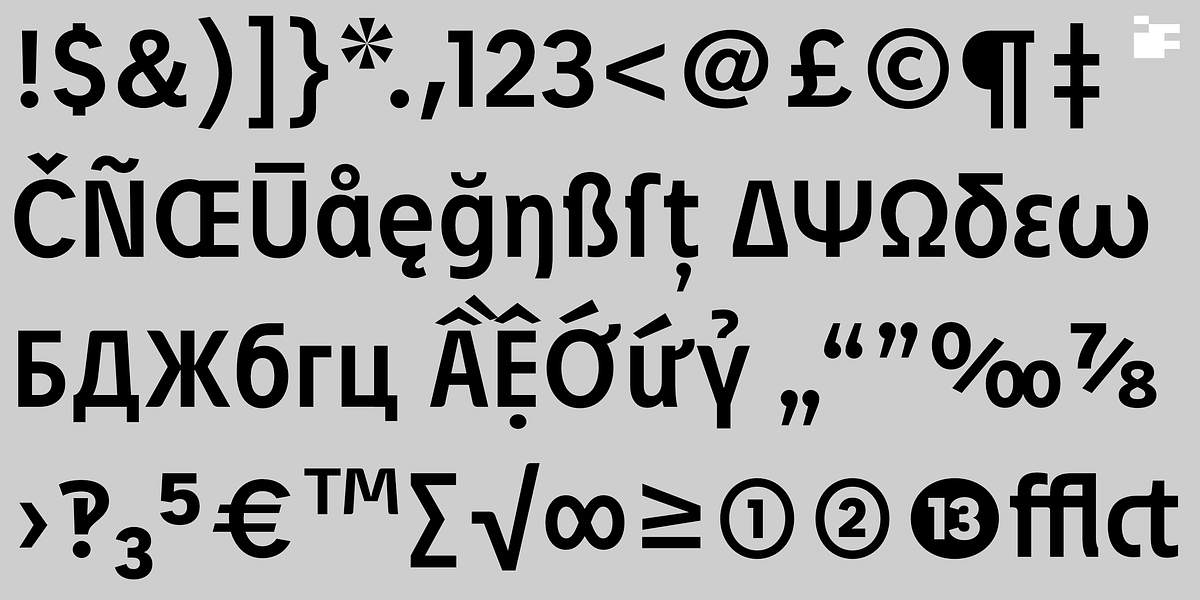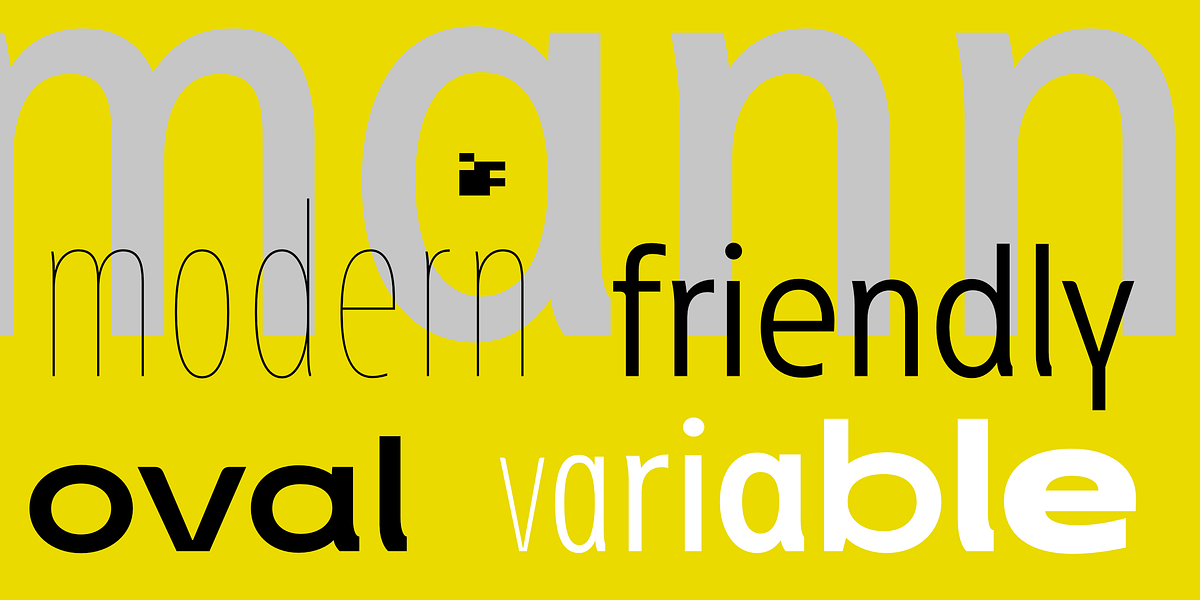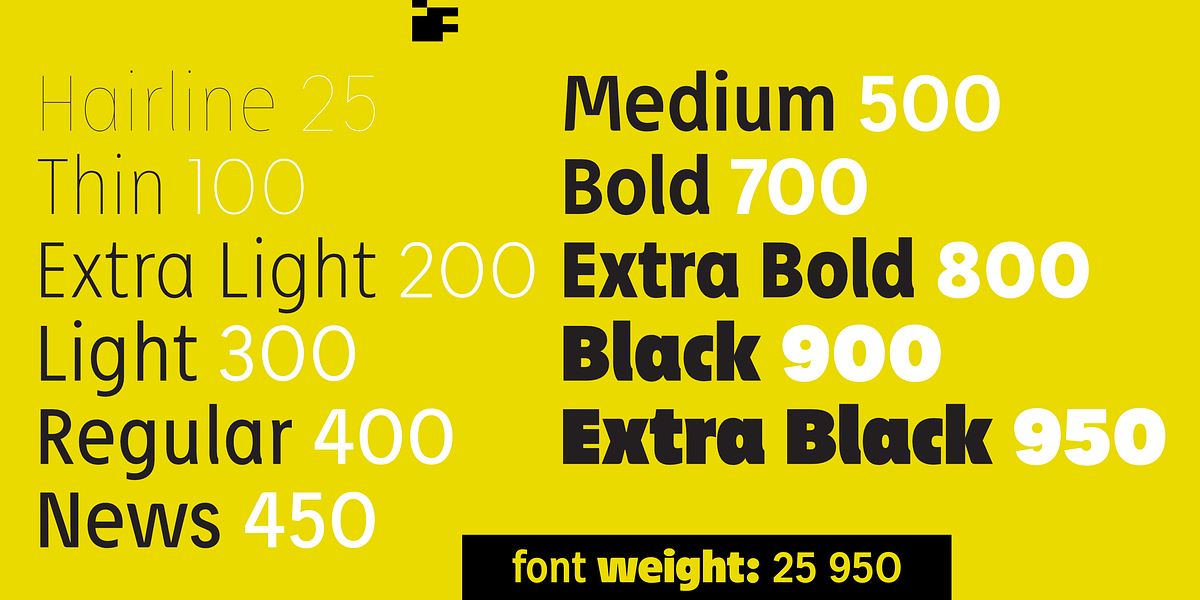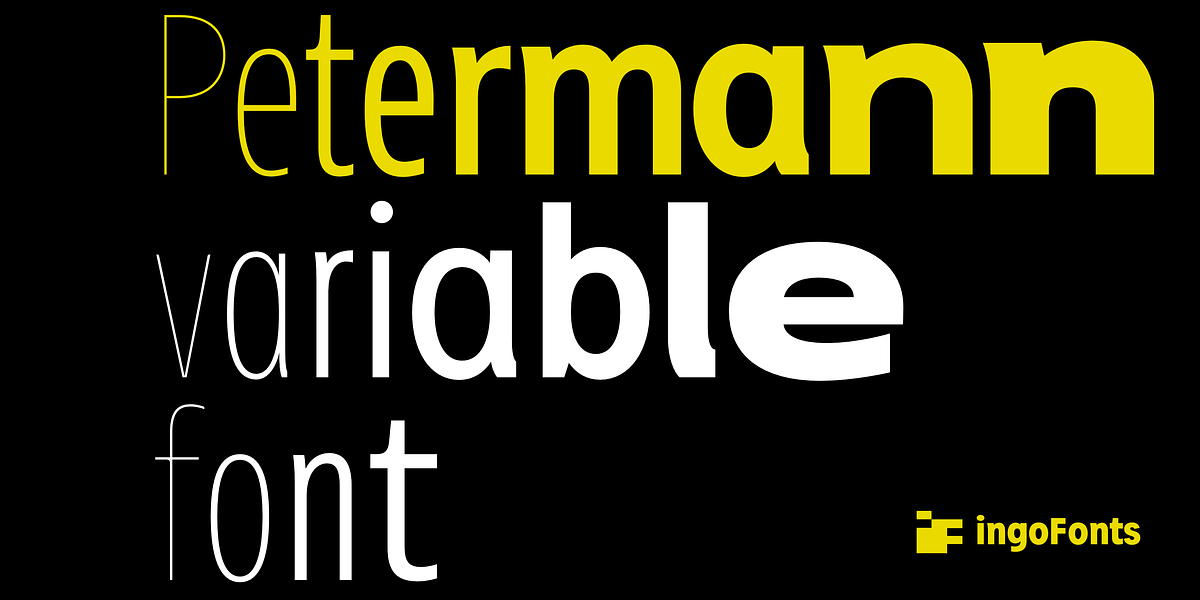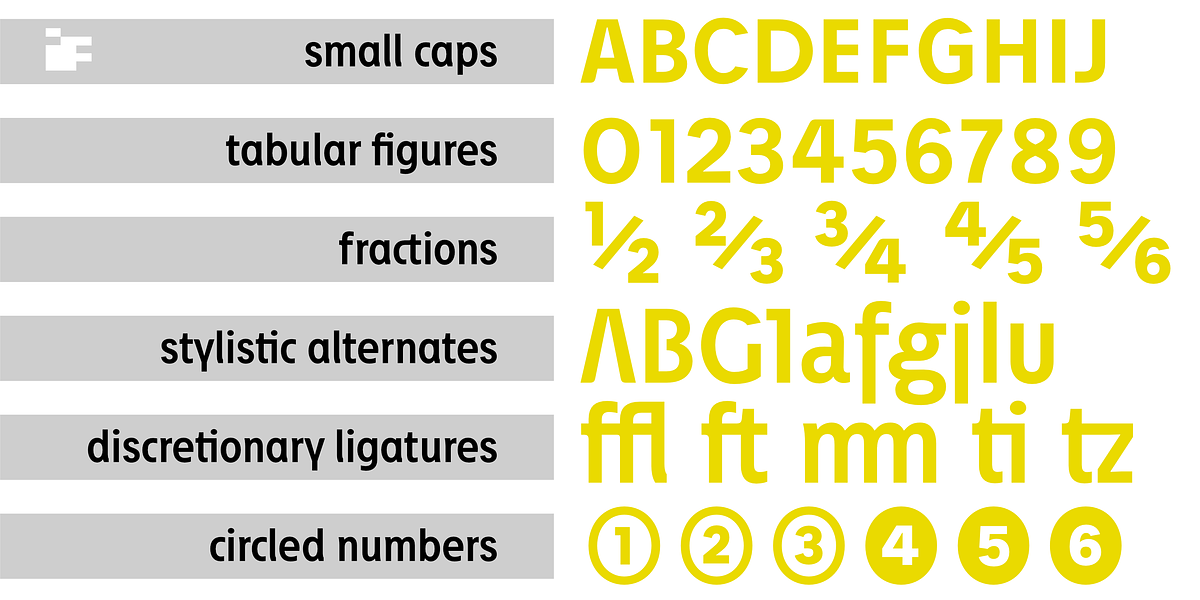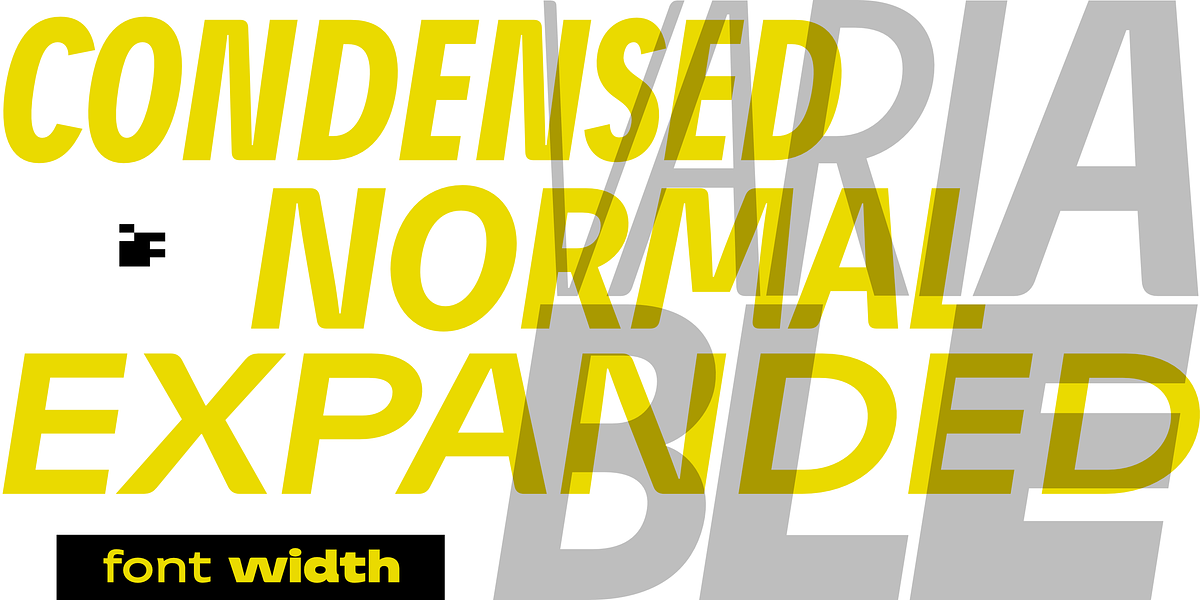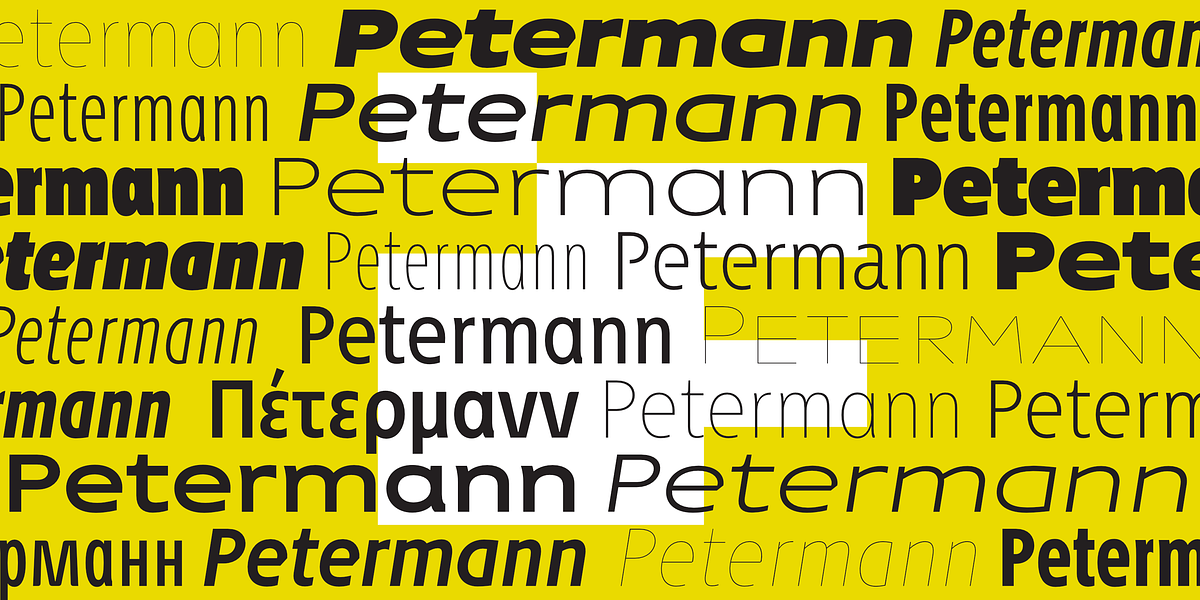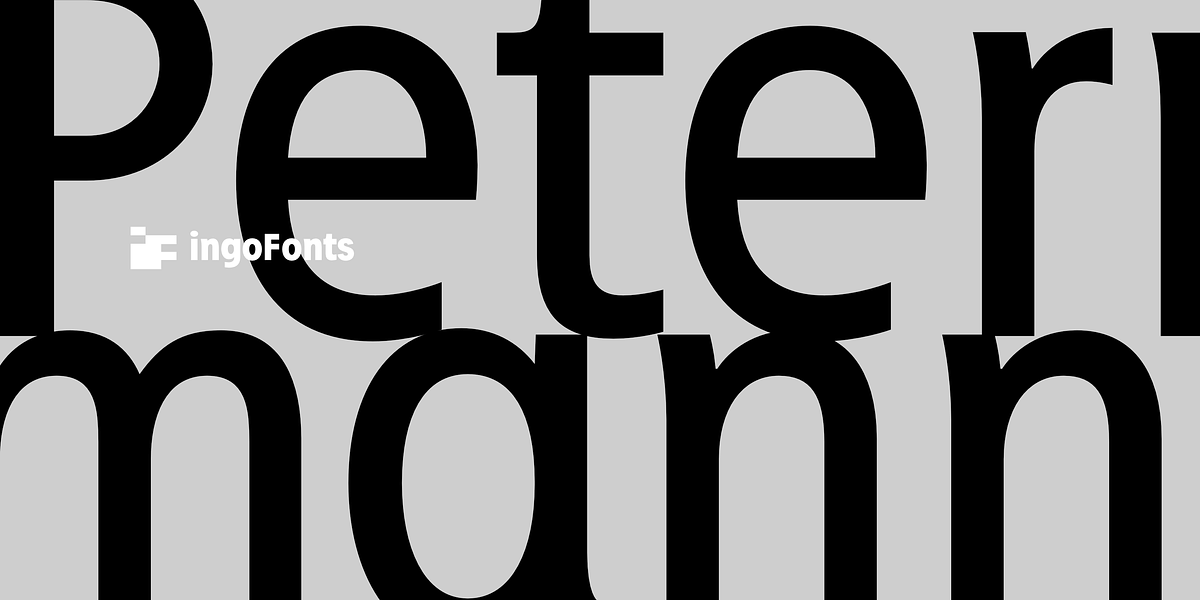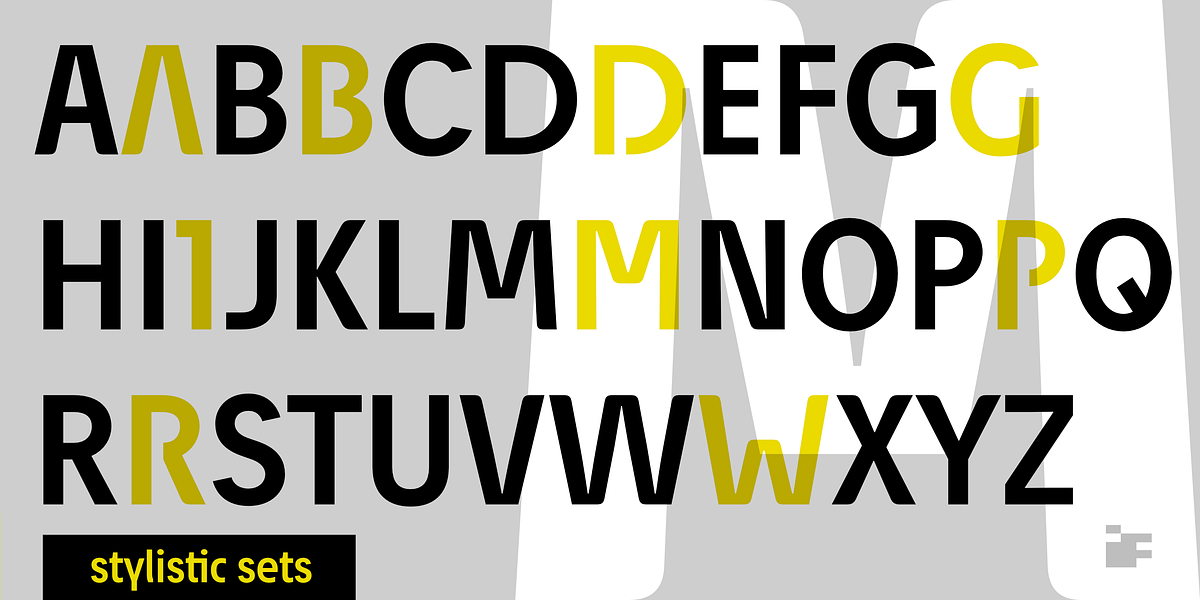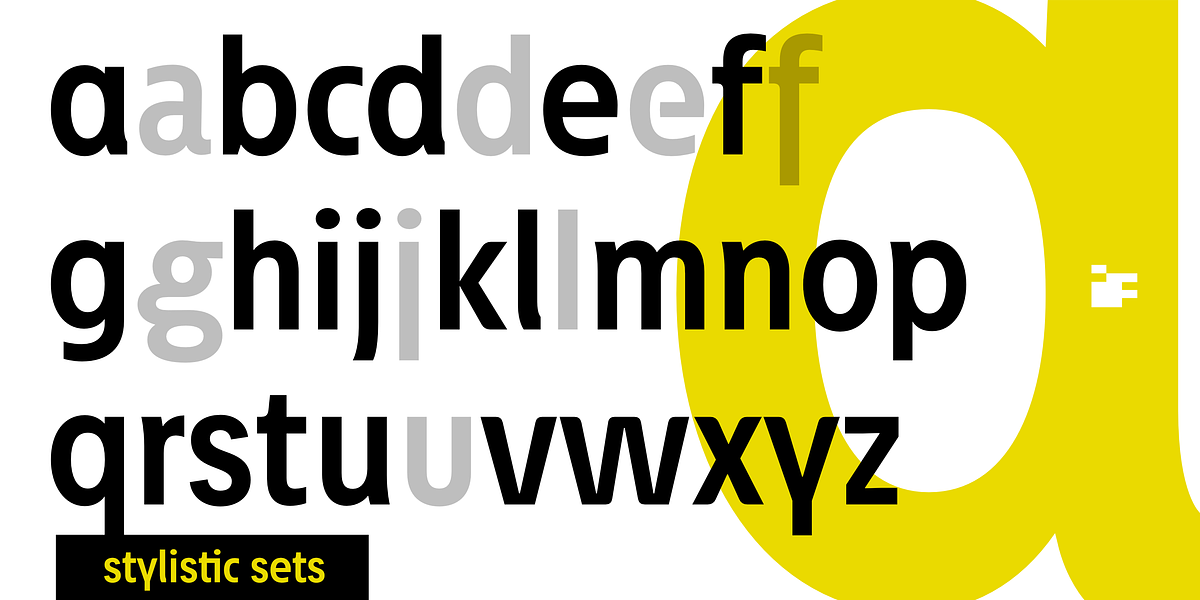
Petermann
Petermann is a modern sans serif font characterized by its friendly open oval shapes and functional design. The typeface includes a range of weights from Hairline to Extra Black and widths from Condensed to Expanded. Its 'normal' width is notably narrower than typical fonts. The light counter forms within the letters create a pleasing rhythm, contributing to the overall gentle aesthetic. Some letters incorporate subtle serif-like elements for enhanced fluency. Petermann offers a variety of OpenType features including small caps, fractions, circled numbers, and alternative letter designs.